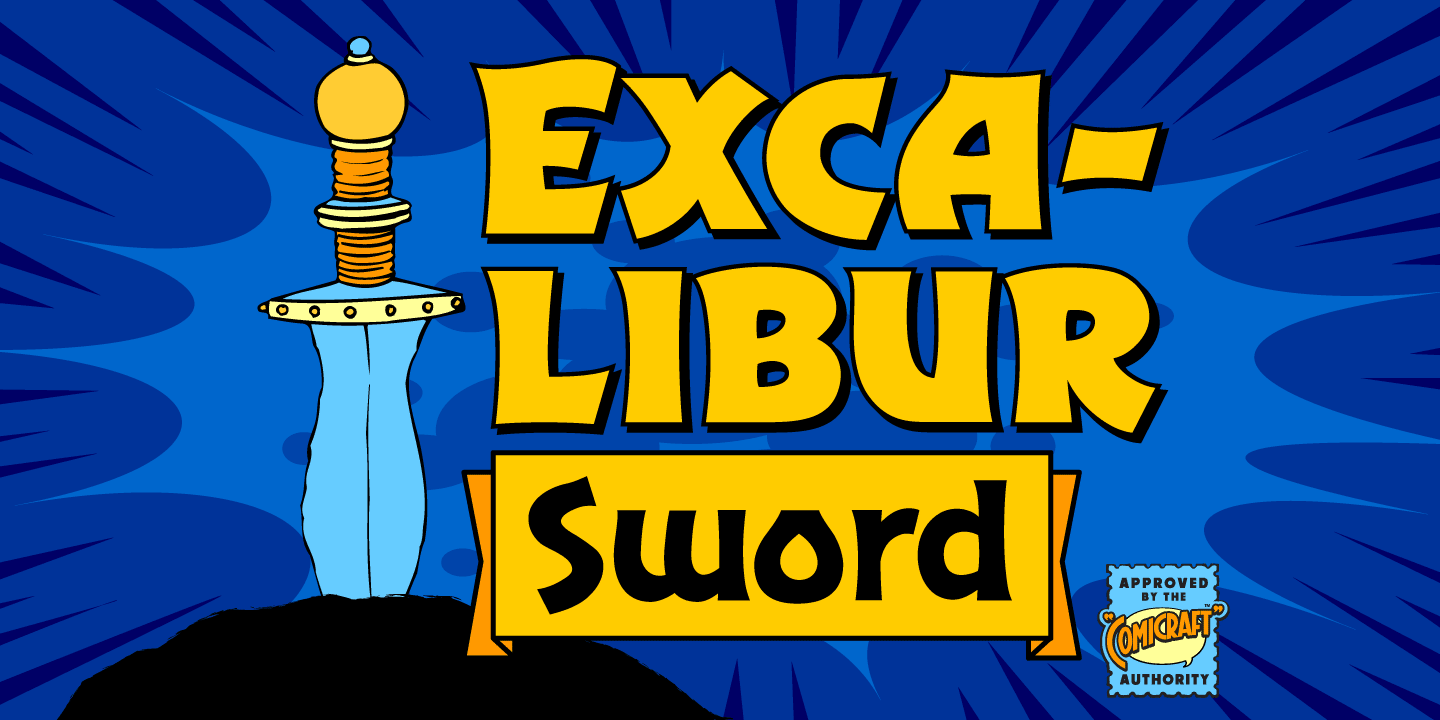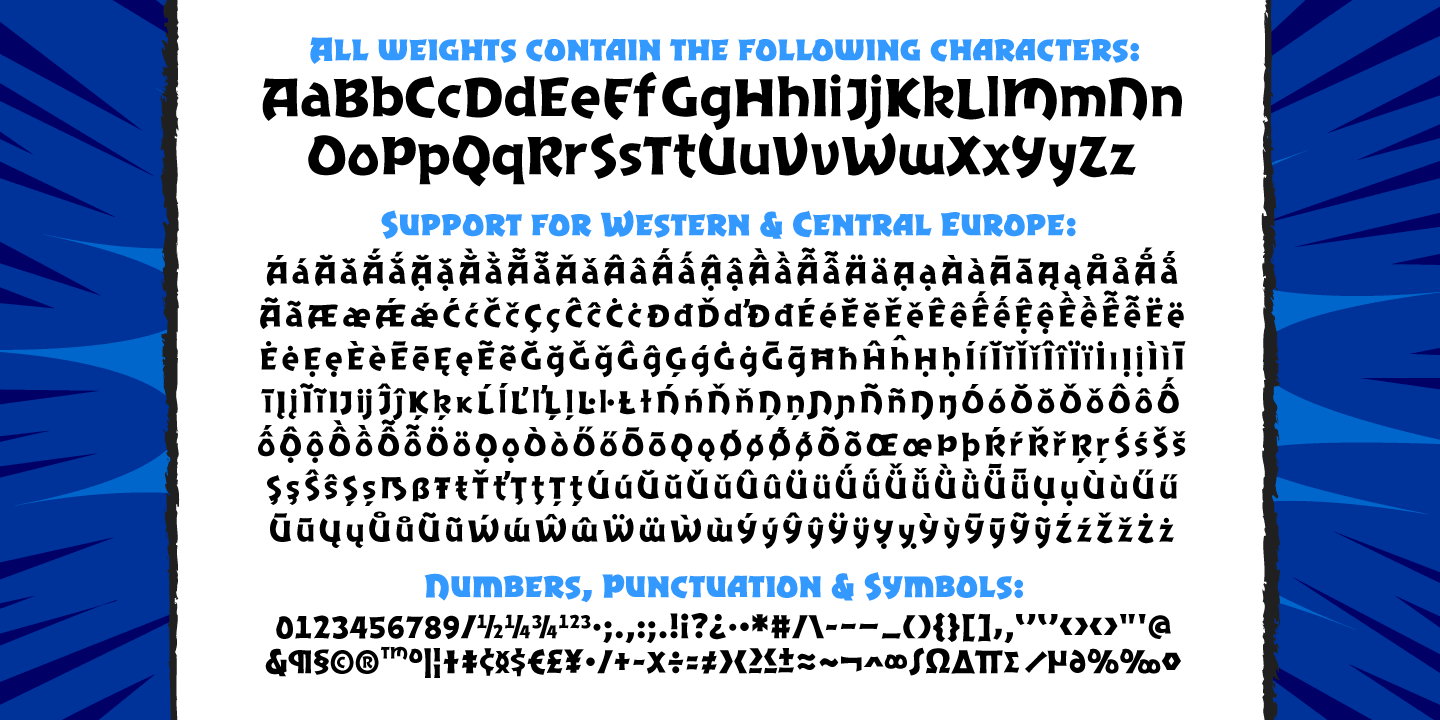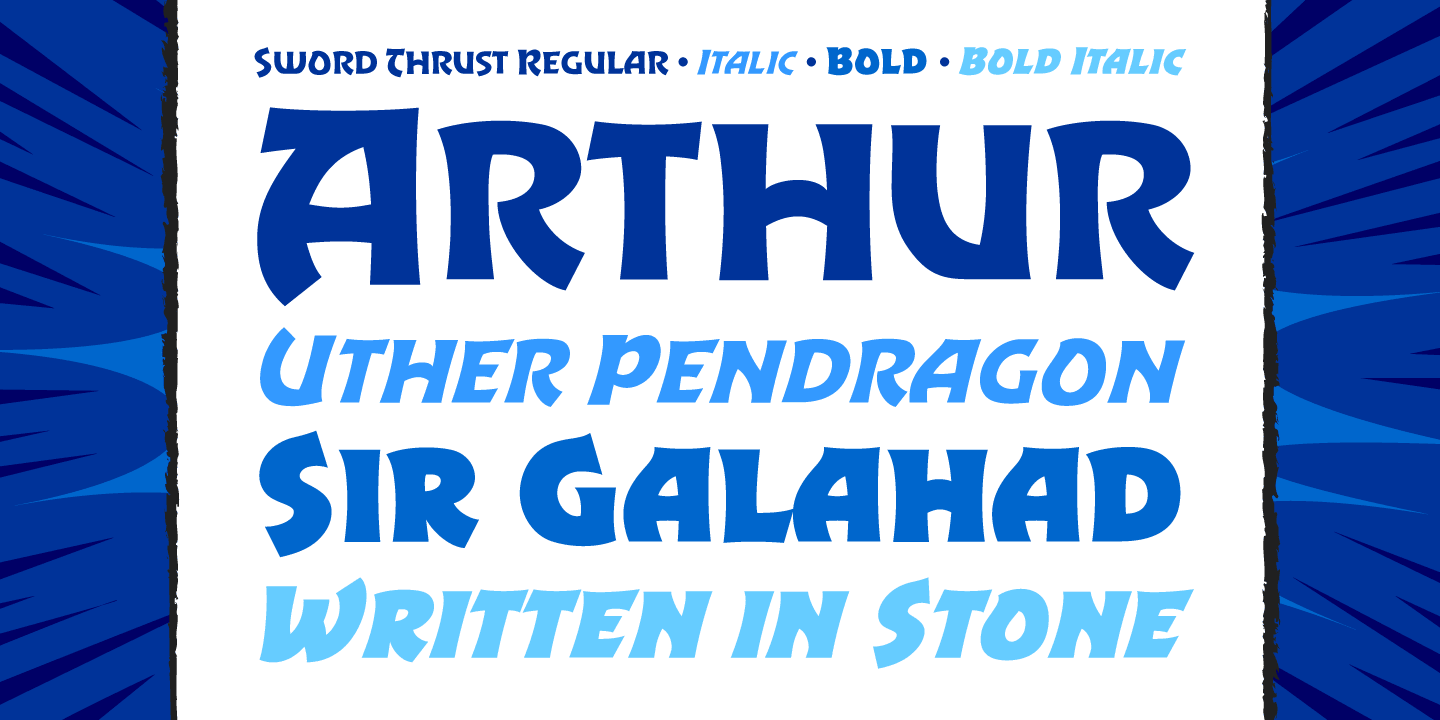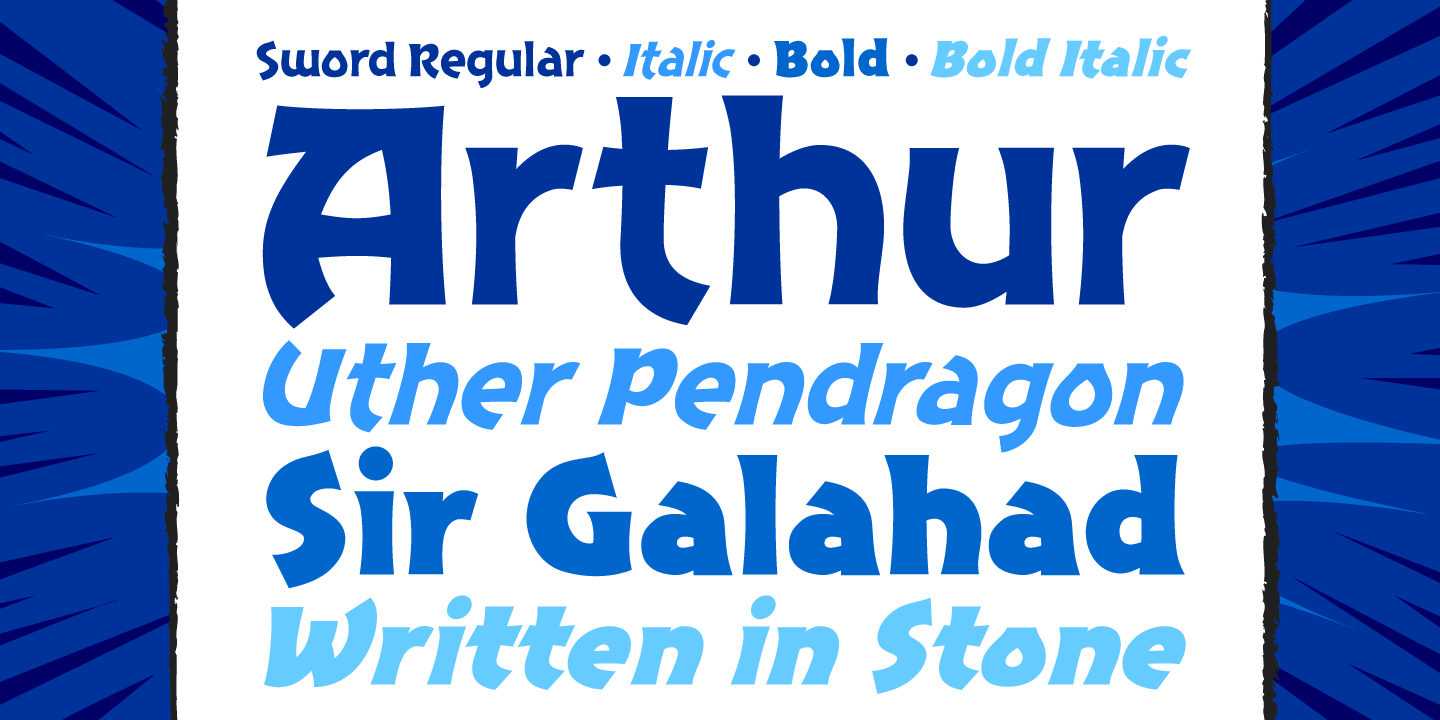
Excalibur Sword
The Sword has been Drawn! The Quest for the Holy Grail has begun! When Arthur took the mighty sword of Excalibur from the Lady of the Lake, little did he know of the stories that would be spun, the myths that would be built around him, the Legend of Camelot and the Knights of the Round Table!
And The Font. Merlin might have been King Arthur's sage advisor, a font of wisdom and magicks, but never was Merlin available in postscript, truetype and opentype formats, nor was Lancelot, Arthur's First Knight suitable for Celtic Display Lettering!